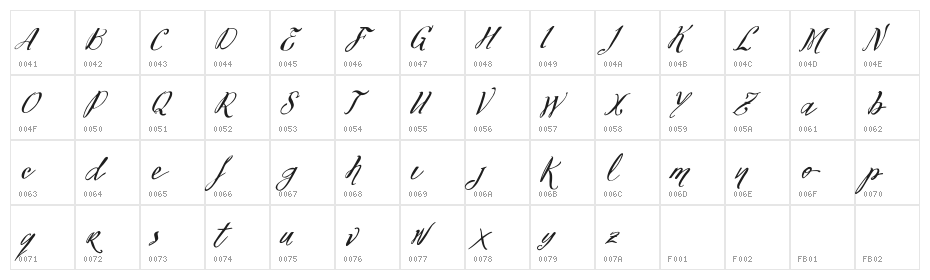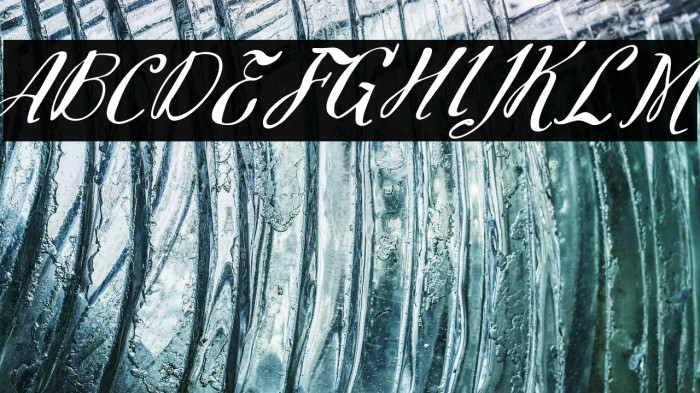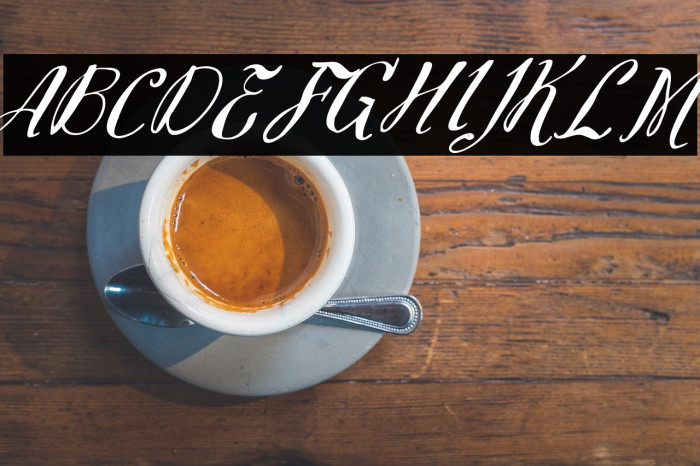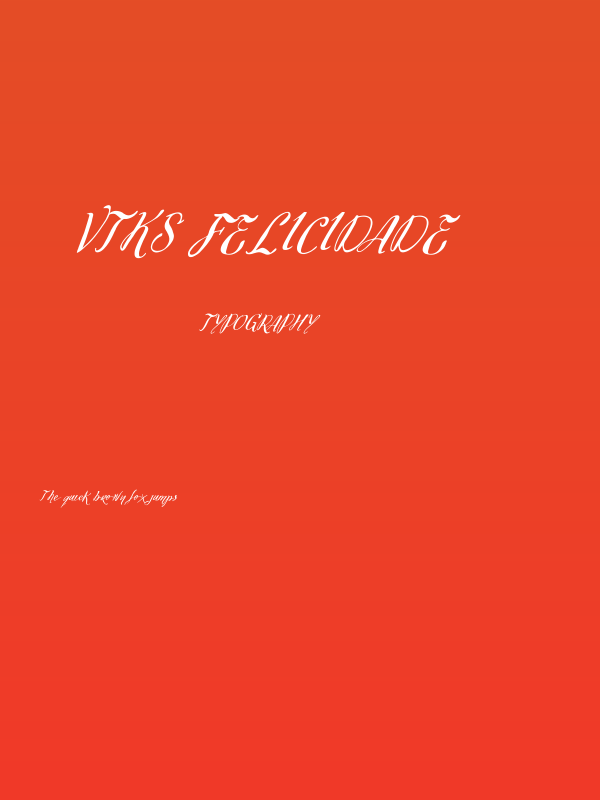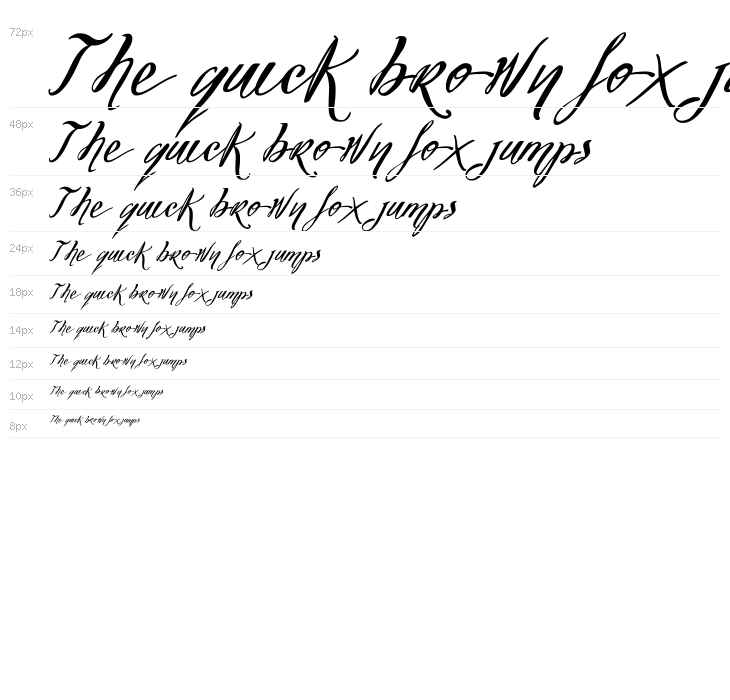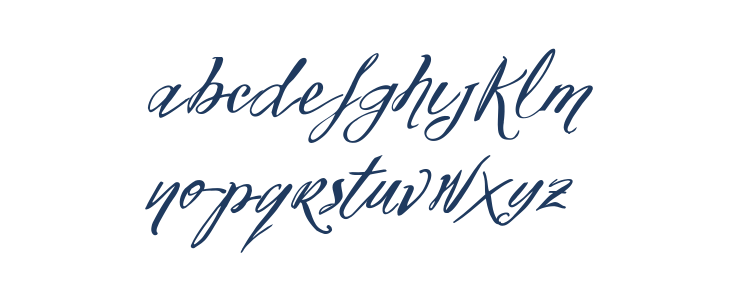
Vtks Felicidade 2016 Font
Vtks Felicidade 2016 Description
This font showcases an elegant and flowing script style, characterized by its smooth, cursive strokes and artistic flair. The uppercase letters are bold and expressive, with dramatic flourishes that add a sense of movement and dynamism. The lowercase letters maintain a consistent style, with a slightly more restrained design that complements the uppercase characters. The overall appearance is both sophisticated and playful, making it suitable for creative and decorative applications. The font's unique style is ideal for capturing attention while maintaining readability.
| Proposed Projects | Ideal for wedding invitations, greeting cards, branding, and decorative signage. |